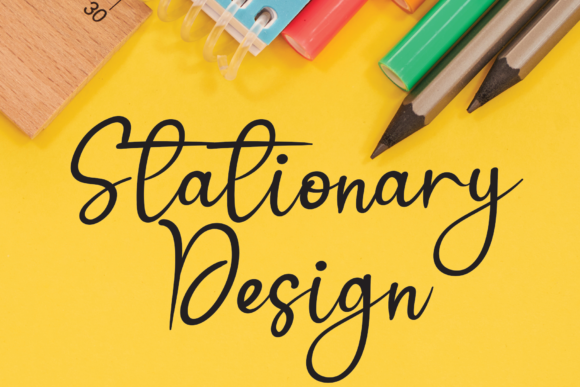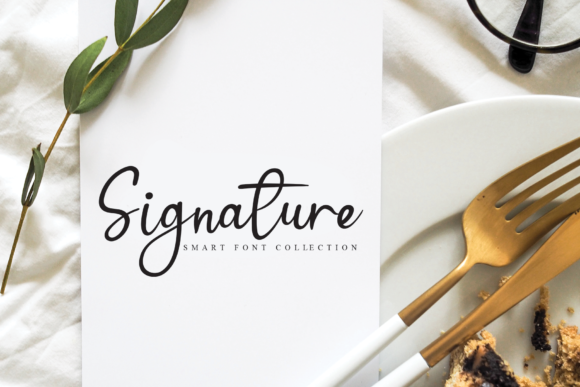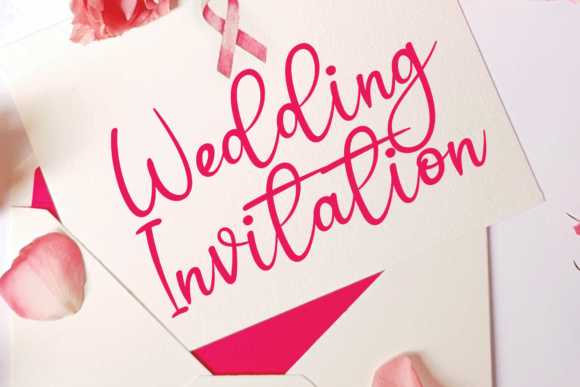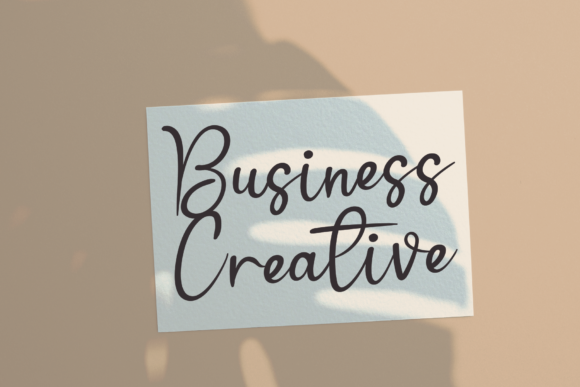
Introducing Energetic Valentine Font: The Perfect Choice for Your Design Needs
Are you looking for a font that exudes elegance and sophistication? Look no further than the Energetic Valentine Font. This delicate and elegant handwritten font is sure to capture your heart with its distinct and well-rounded letters. In this article, we’ll dive into the features and benefits of the Energetic Valentine Font and explore how you can use it to create spectacular designs.
The Unique Characteristics of Energetic Valentine Font
The Energetic Valentine Font is a masterpiece of typography, boasting a unique and stylish design that sets it apart from other fonts. Its delicate and elegant handwritten style makes it perfect for a wide range of design projects, from romantic invitations and Valentine’s Day cards to branding and advertising materials.
One of the standout features of the Energetic Valentine Font is its distinct and well-rounded letters. Each letter is carefully crafted to create a sense of fluidity and movement, making it a joy to read and look at. The font’s versatility is also a major advantage, allowing you to use it in a variety of contexts and applications.
The Benefits of Using Energetic Valentine Font
So why choose the Energetic Valentine Font for your design needs? Here are just a few benefits of using this amazing font:
- Elegance and sophistication: The Energetic Valentine Font exudes elegance and sophistication, making it perfect for high-end designs and luxury brands.
- Versatility: The font’s versatility means you can use it in a wide range of design projects, from romantic and whimsical to modern and edgy.
- Easy to read: The font’s clear and well-rounded letters make it easy to read, even at small sizes.
- Unique and distinctive: The Energetic Valentine Font is a one-of-a-kind font that will help your designs stand out from the crowd.
How to Use Energetic Valentine Font in Your Designs
Now that we’ve explored the features and benefits of the Energetic Valentine Font, let’s talk about how you can use it in your designs. Here are a few ideas to get you started:
- Valentine’s Day cards and invitations: The Energetic Valentine Font is perfect for creating romantic and whimsical Valentine’s Day cards and invitations.
- Branding and advertising: Use the font to create elegant and sophisticated branding and advertising materials, such as logos, brochures, and flyers.
- Wedding and event planning: The font’s elegant and refined style makes it perfect for wedding and event planning designs, such as invitations, menus, and programs.
- Digital and social media: Use the Energetic Valentine Font to create eye-catching digital and social media graphics, such as Instagram posts, Facebook covers, and blog headers.
Tips and Tricks for Working with Energetic Valentine Font
Here are a few tips and tricks to help you get the most out of the Energetic Valentine Font:
- Experiment with different colors and textures: The Energetic Valentine Font looks great in a variety of colors and textures, so don’t be afraid to experiment and find the perfect combination for your design.
- Use it with other fonts: The font pairs well with other fonts, so try combining it with different fonts to create a unique and interesting design.
- Pay attention to spacing and kerning: Make sure to pay attention to the spacing and kerning of the font to ensure it looks its best.
In conclusion, the Energetic Valentine Font is a beautiful and versatile font that is perfect for designers and crafters looking to add a touch of elegance and sophistication to their designs. With its unique and well-rounded letters, delicate and elegant handwritten style, and versatility, this font is sure to capture your heart and inspire your creativity.
Whether you’re creating romantic invitations, elegant branding materials, or eye-catching digital graphics, the Energetic Valentine Font is the perfect choice. So why wait? Fall in love with the Energetic Valentine Font today and start creating spectacular designs that will leave a lasting impression!